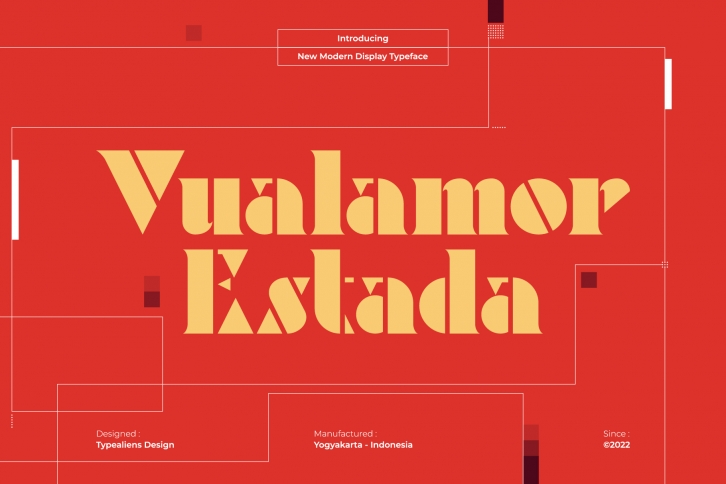
Vualamor Estada is a unique slab serif font that will impress you with its authenticity. Use it to create bold and outstandingly beautiful projects! It works wonderfully for both modern and vintage design ideas.